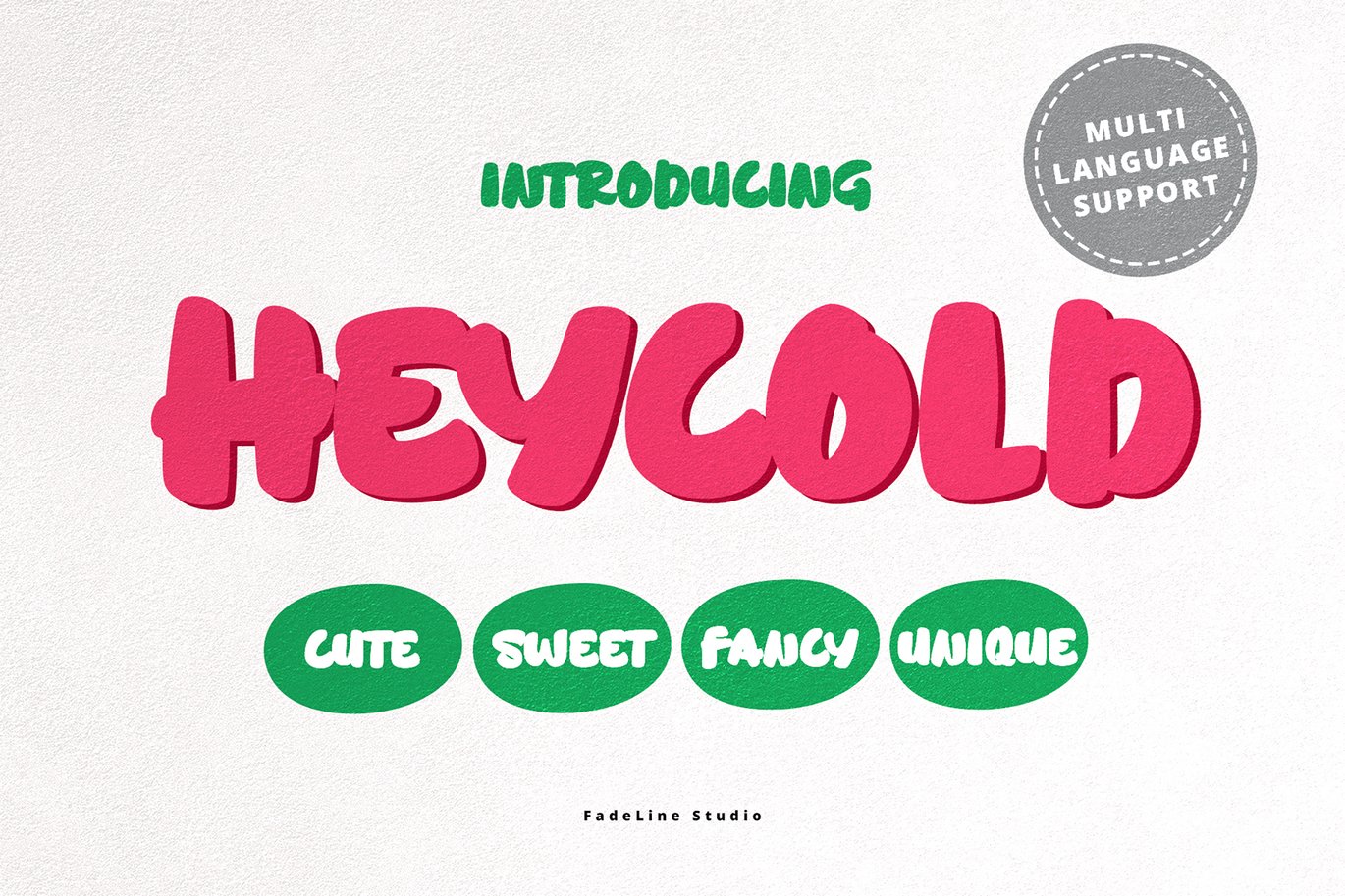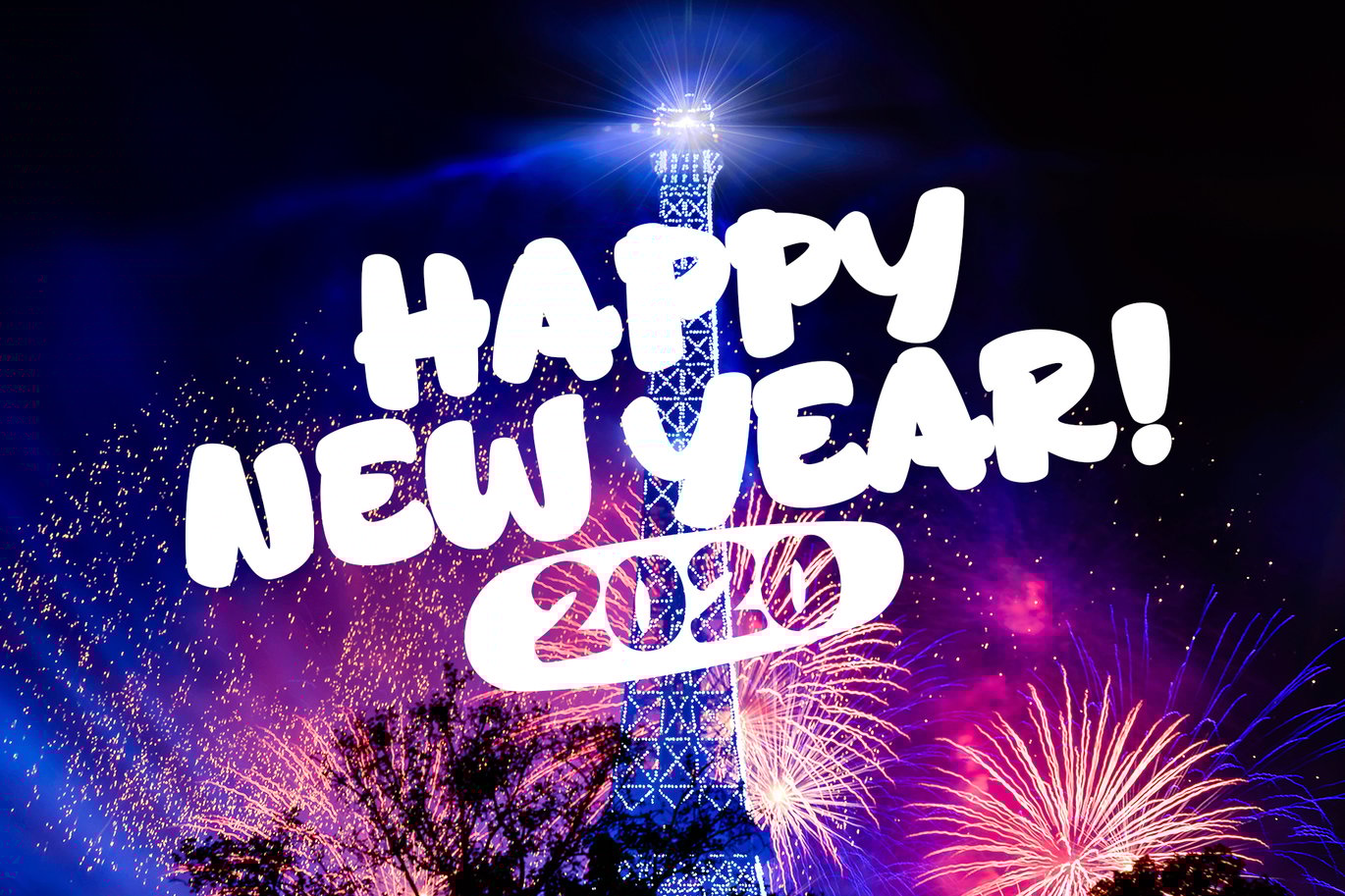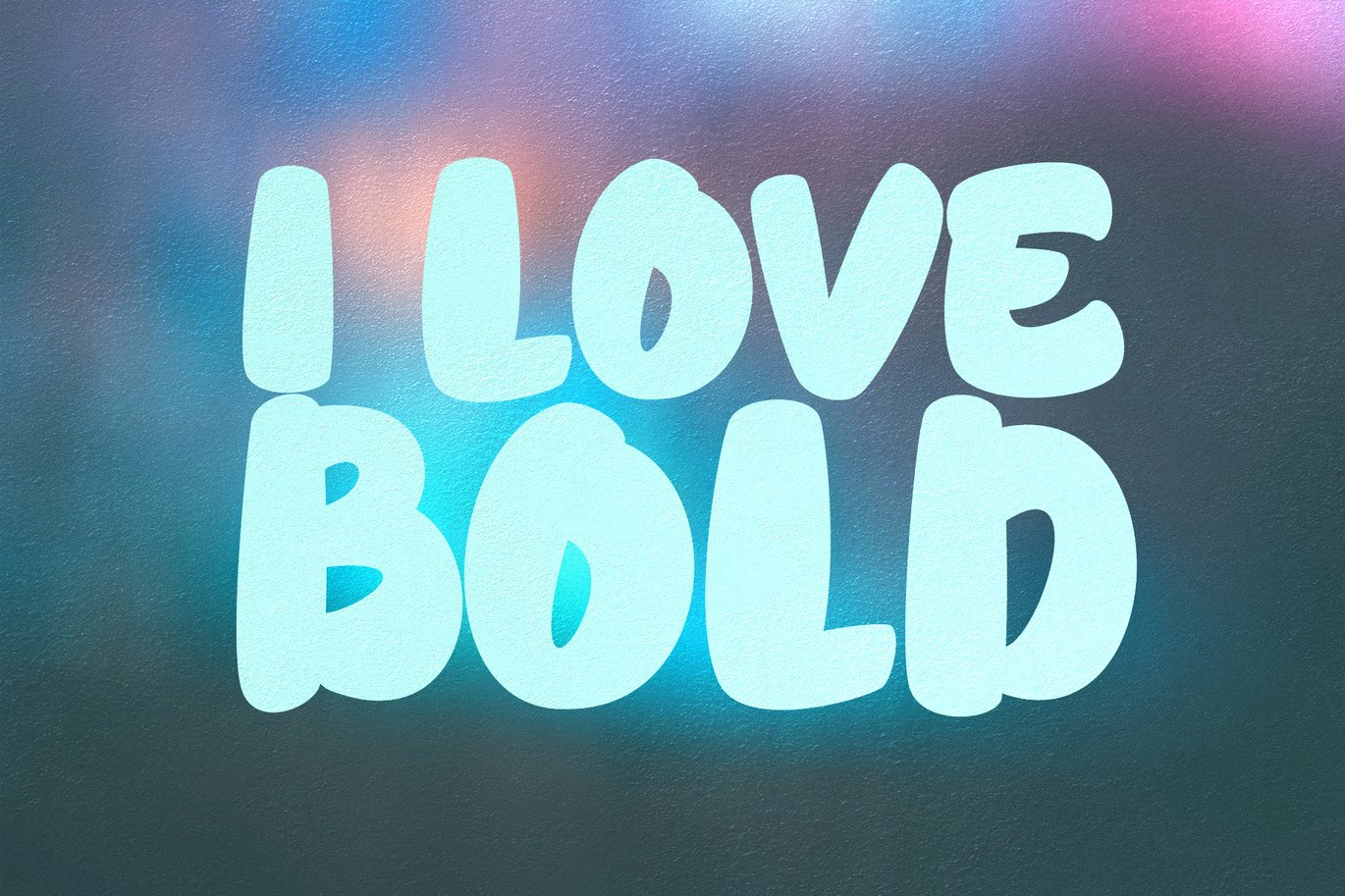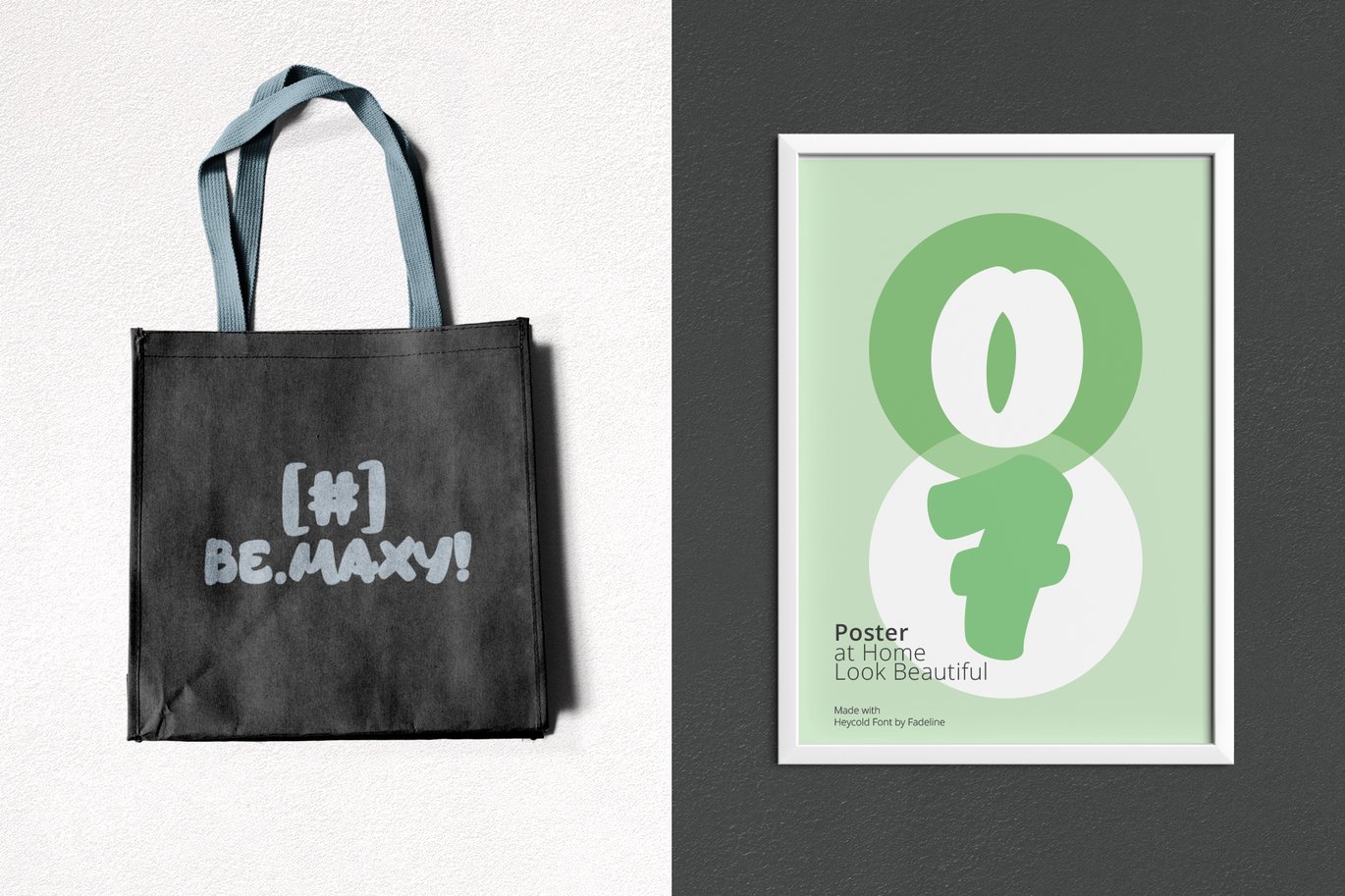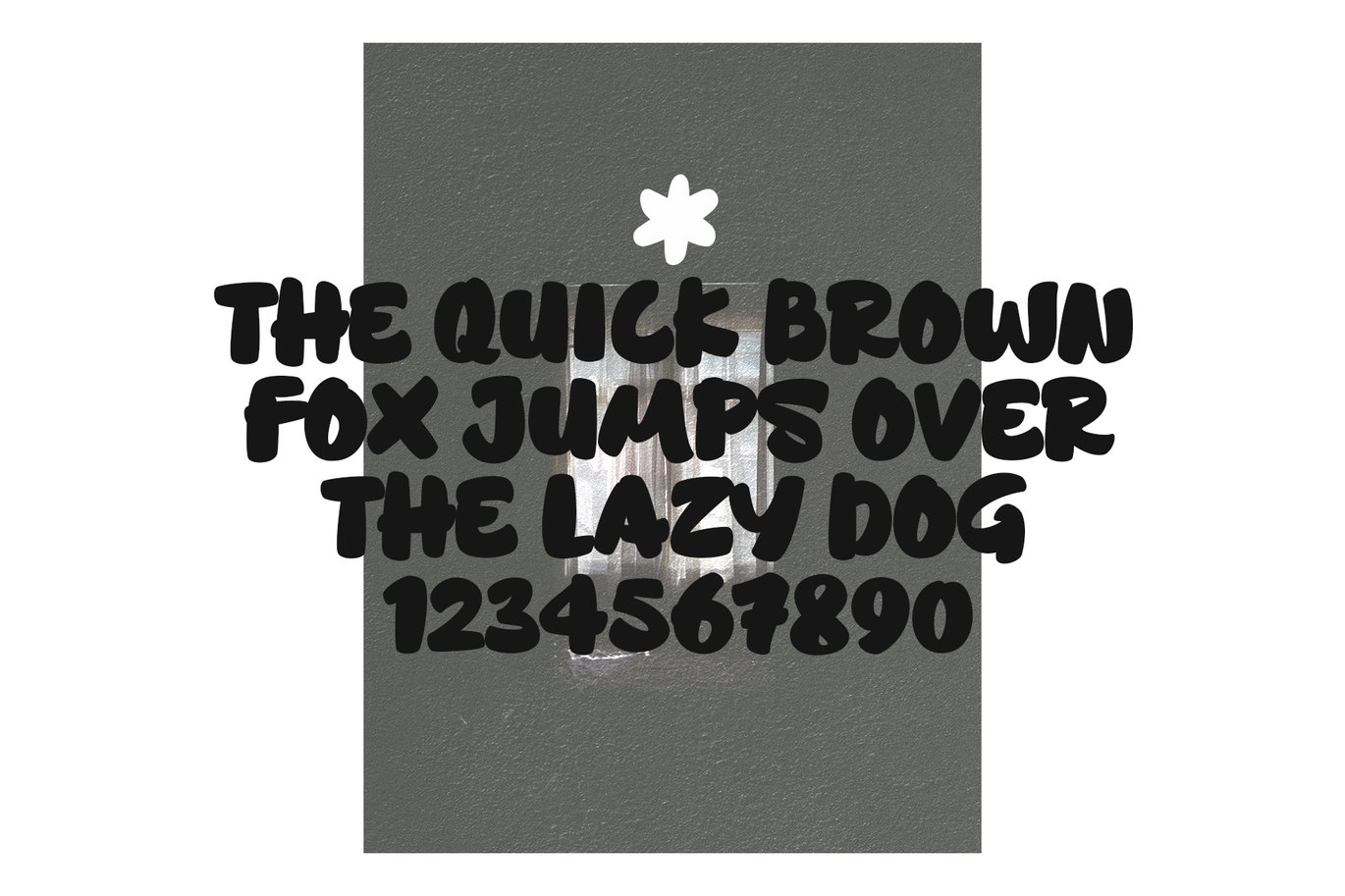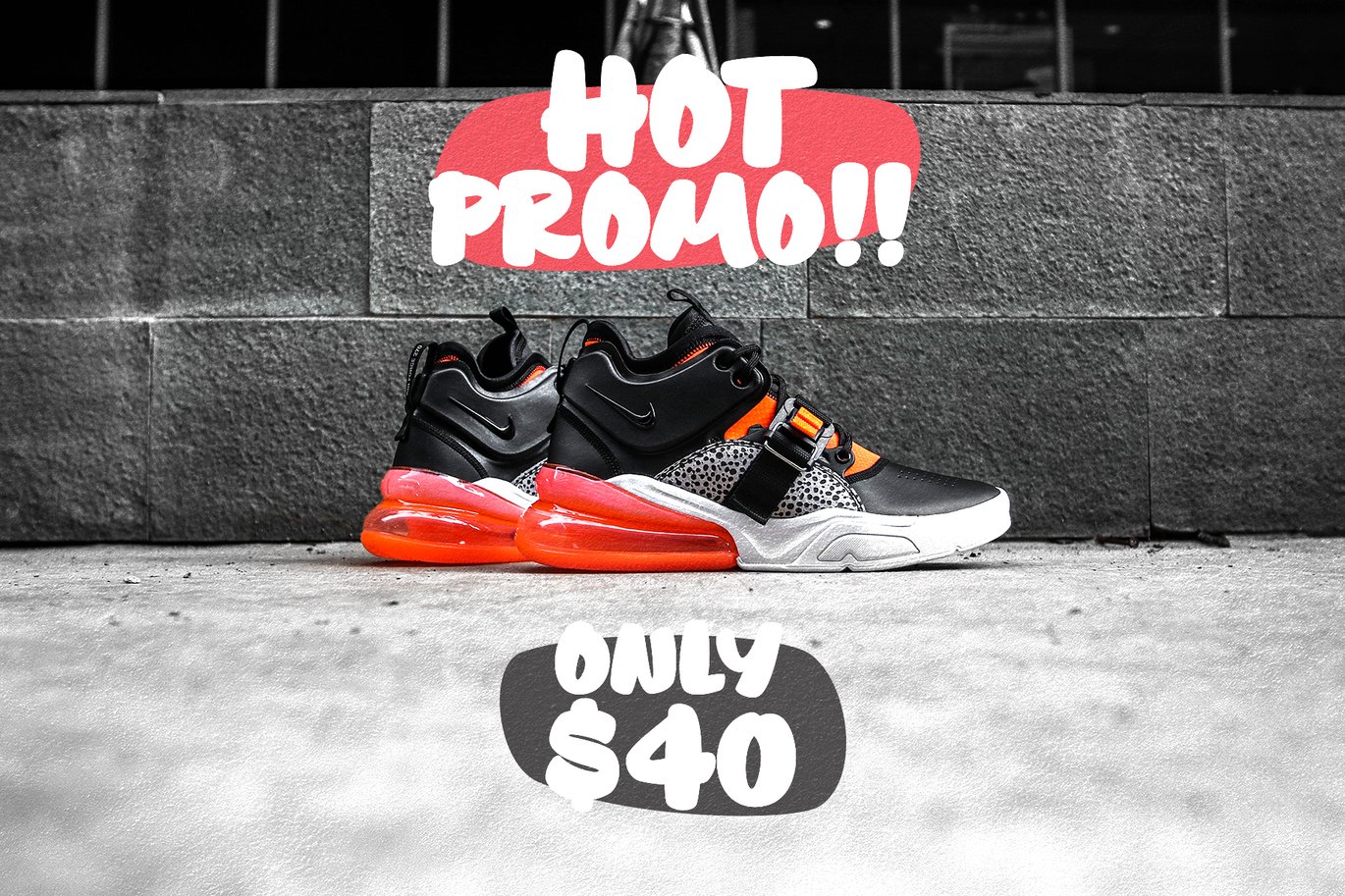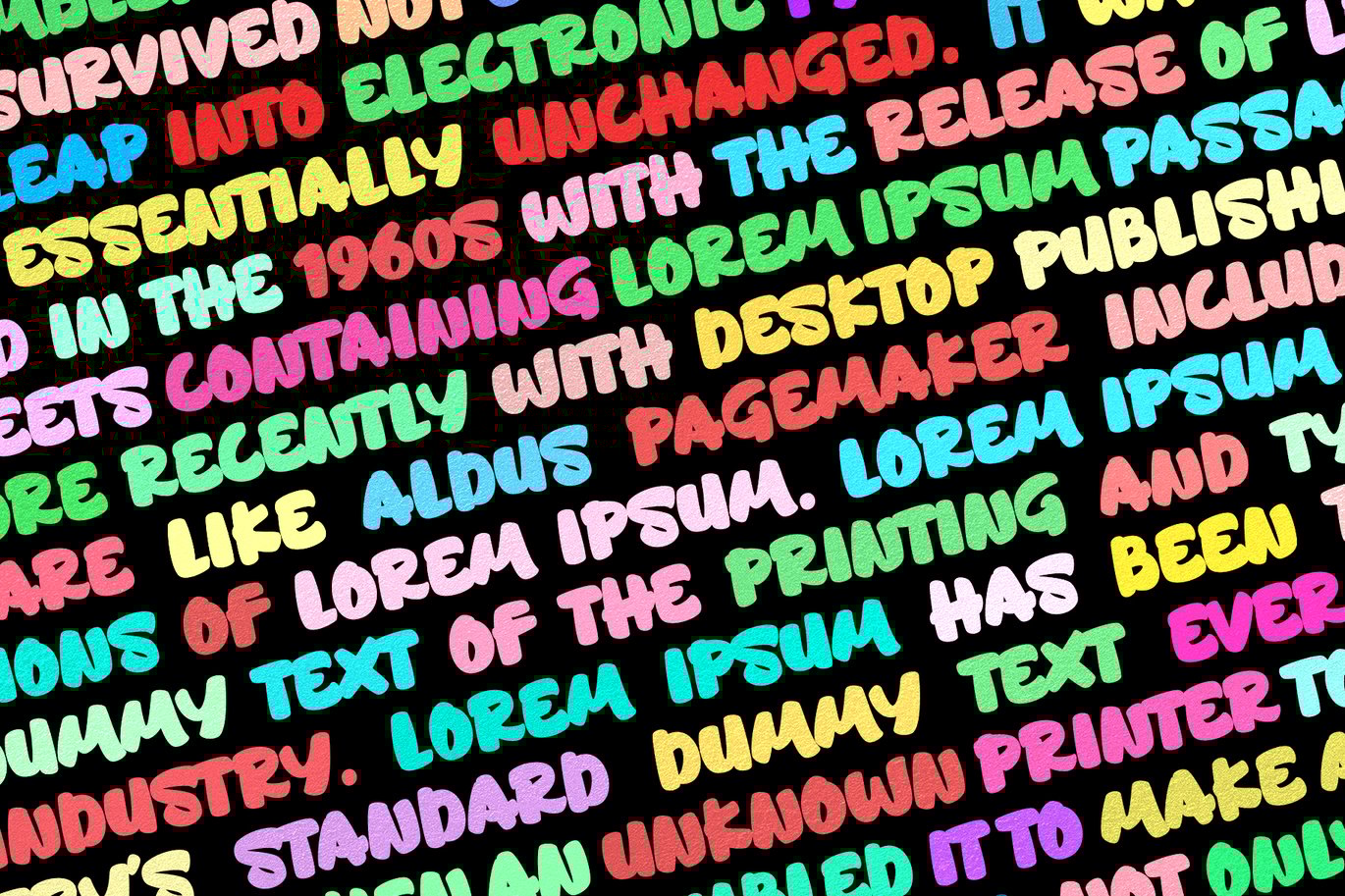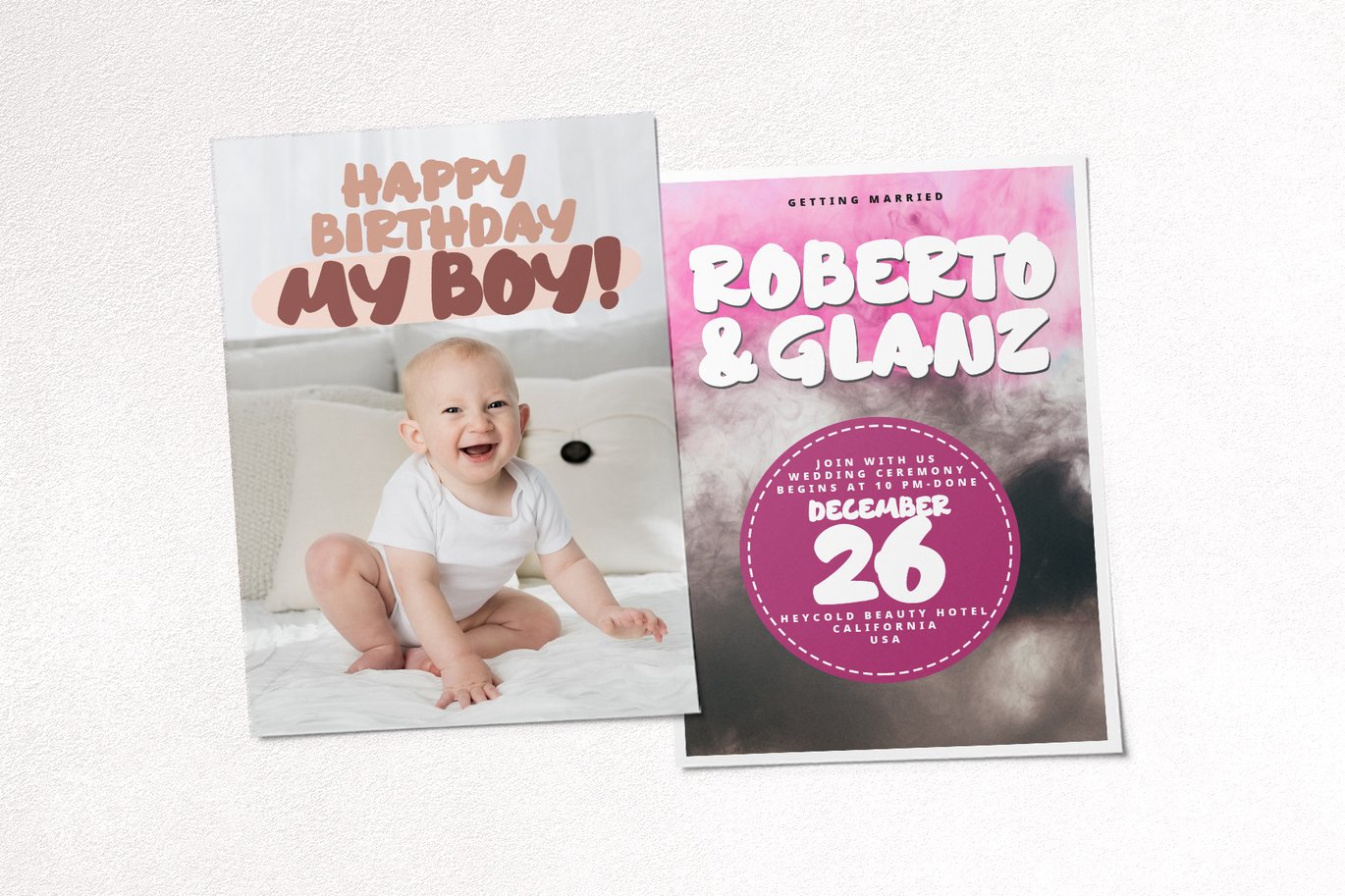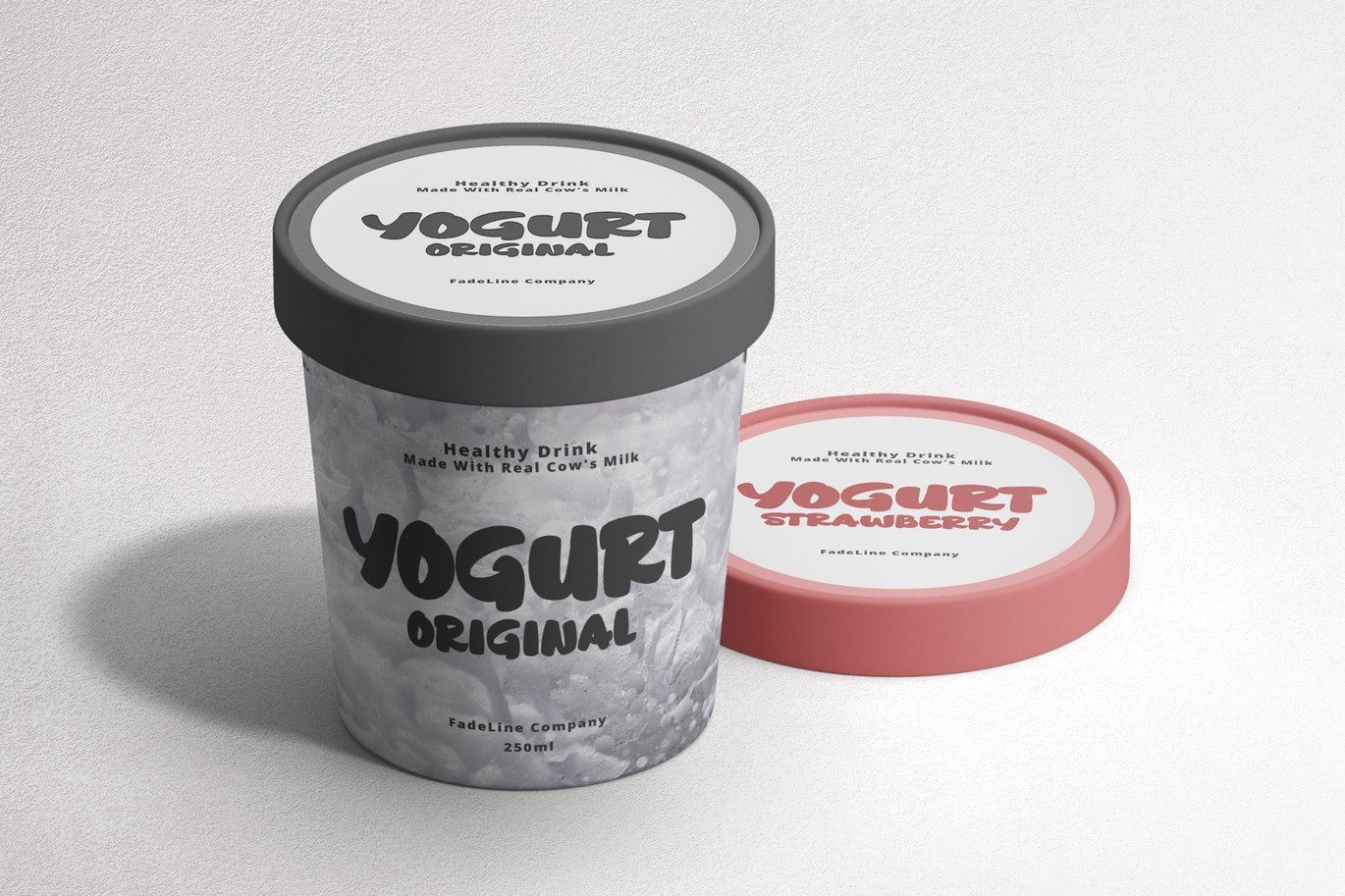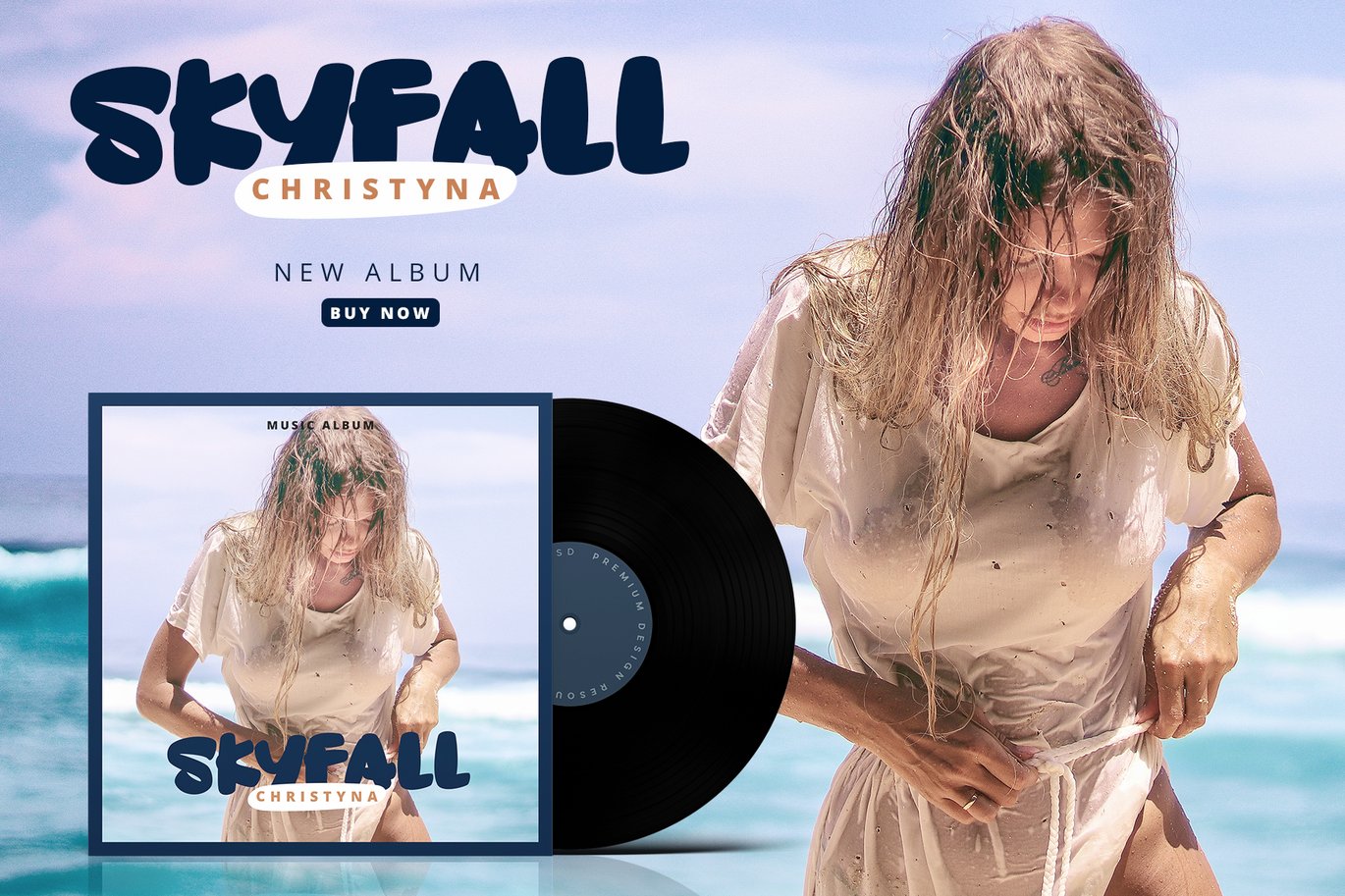
HEYCOLD CUTE FONT
Introducing! HEYCOLD is a new beautiful and modern display font! This fun font has cute, cute, round, unique and fancy font characters. Made specifically with attention to appearance, aims to give happiness to everyone who uses it!
With a style like this, this font will be suitable in use for comic, logo’s, branding projects, homeware designs, product packaging, mugs, quotes, posters, shopping bags, logo’s, t-shirts, book covers, name card, invitation cards, greeting cards, and all your other lovely projects.